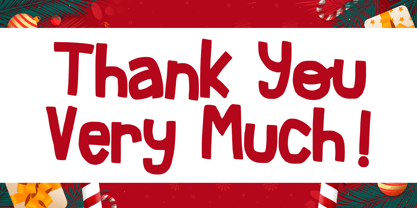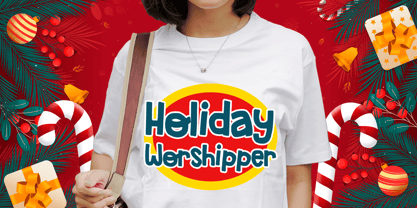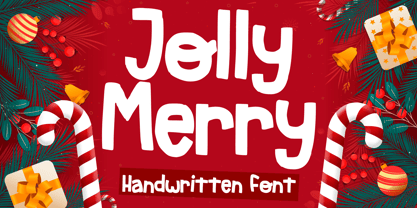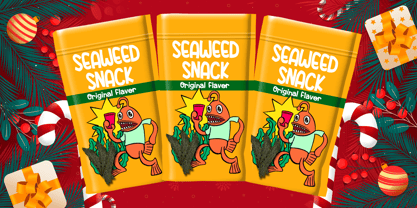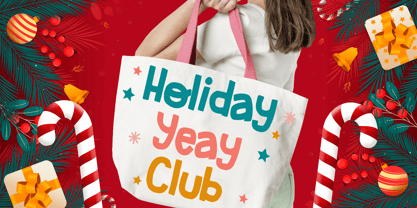
Jolly Merry
by Mvmet
The Jolly Merry Font Family was designed by Gabriel Valentinus and published by Mvmet. Jolly Merry contains 1 styles. More about this family
Jolly Merry is your festive and playful handwritten font! it’s versatile and fun to use font for any themed designs like Christmas, Easter, suitable for your school project and more. It will elevate a wide range of design projects to the highest level. You can use this font for many design ideas such as stickers, t-shirt designs, amazing logo designs, magazine or book covers, comics, cartoon drawings, daily typing, and many more. This font will add a super cool touch to your designs!